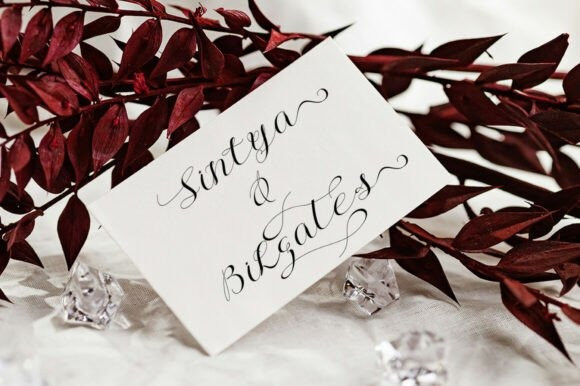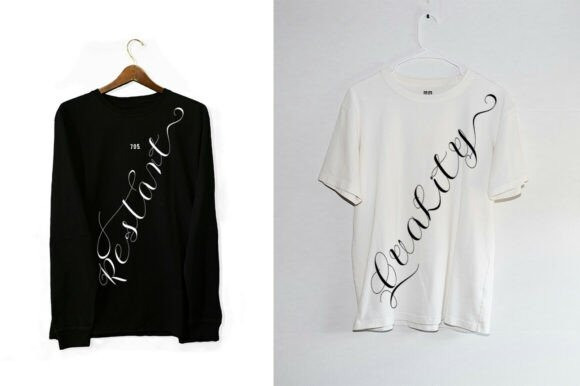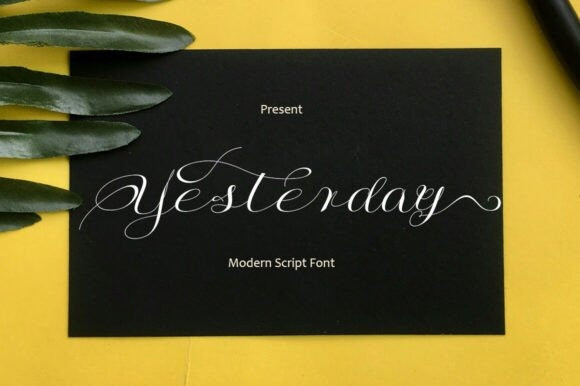
Yesterday Calligraphy Font
Yesterday Calligraphy Font is a modern calligraphy font with an irregular baseline, offering a trendy and feminine style. It looks beautiful on wedding invitations, thank you cards, quotes, greeting cards, logos, business cards, and more. Perfect for use with ink or watercolor projects, this script includes initial and terminal letters, alternates, ligatures, and full multilingual support.